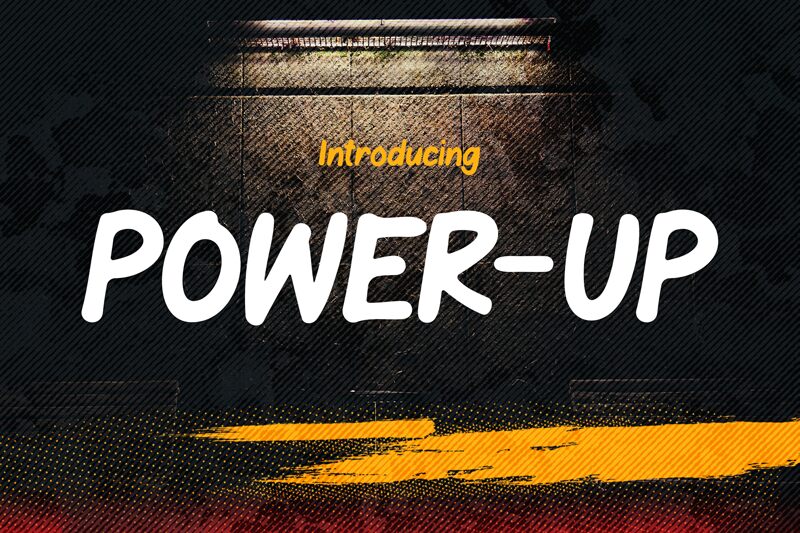
POWER-UP
Power-up font by Pinisiart is a free display font with an energetic comic-style appearance. The letters are bold, have a highlighted retro-inspired appearance, and present a playful vibe that emphasizes movement.
Use the suitable font to decorate comics, comic strips, cartoon drawing covers or book covers in general, advertisements for kids and adults, logos and branding additions, social media business pages or posts design idea planning.